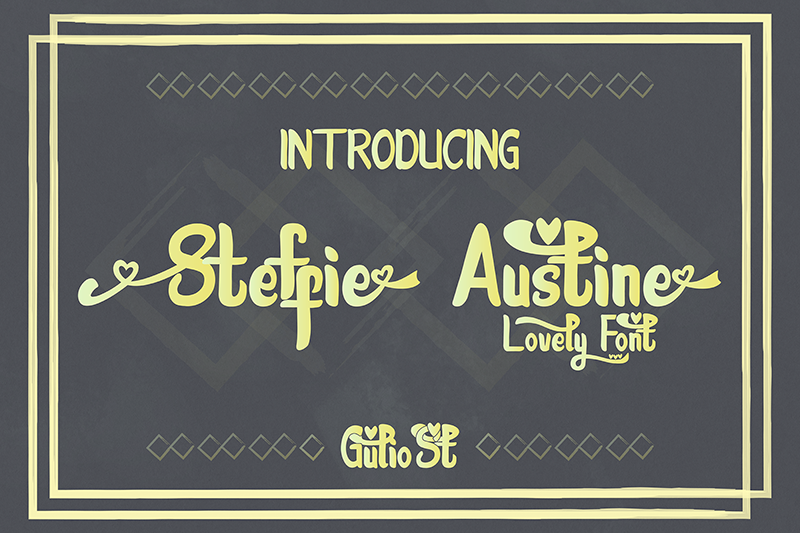
Font name: | Steffie Austin |
Author: | Wahy Sapt |
Note by Wahy Sapt | |
Full Glyphs : https://fontbundles.net/gulio/289163-atrusttacho Any Donate : https://paypal.me/wahysapt Steffie Austin is a love-themed font. A little story behind this font is about how I as the maker is feeling the most beautiful magic(love). In this font, it's all about feelings and affection. Steffie Austin is perfect for logos, games, graphic designs, magazines, brochures, book covers and more. Hope You like my font :) Love you world.. |